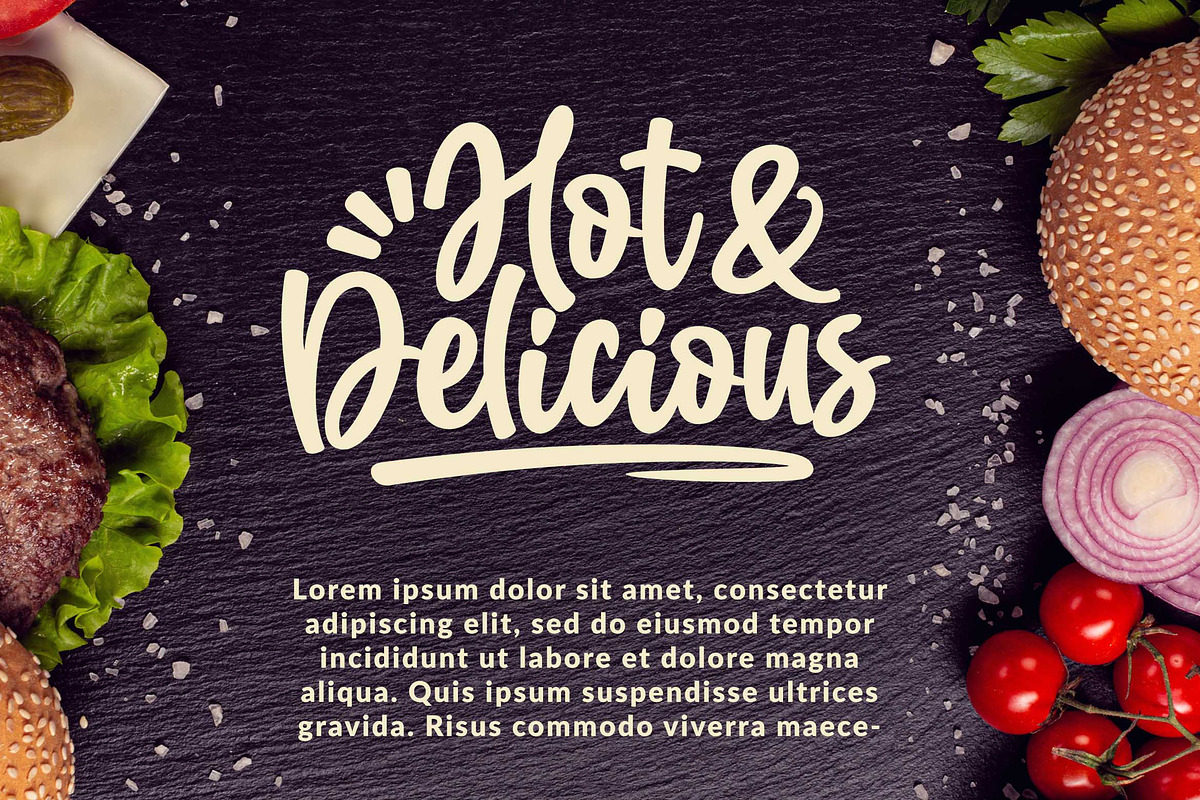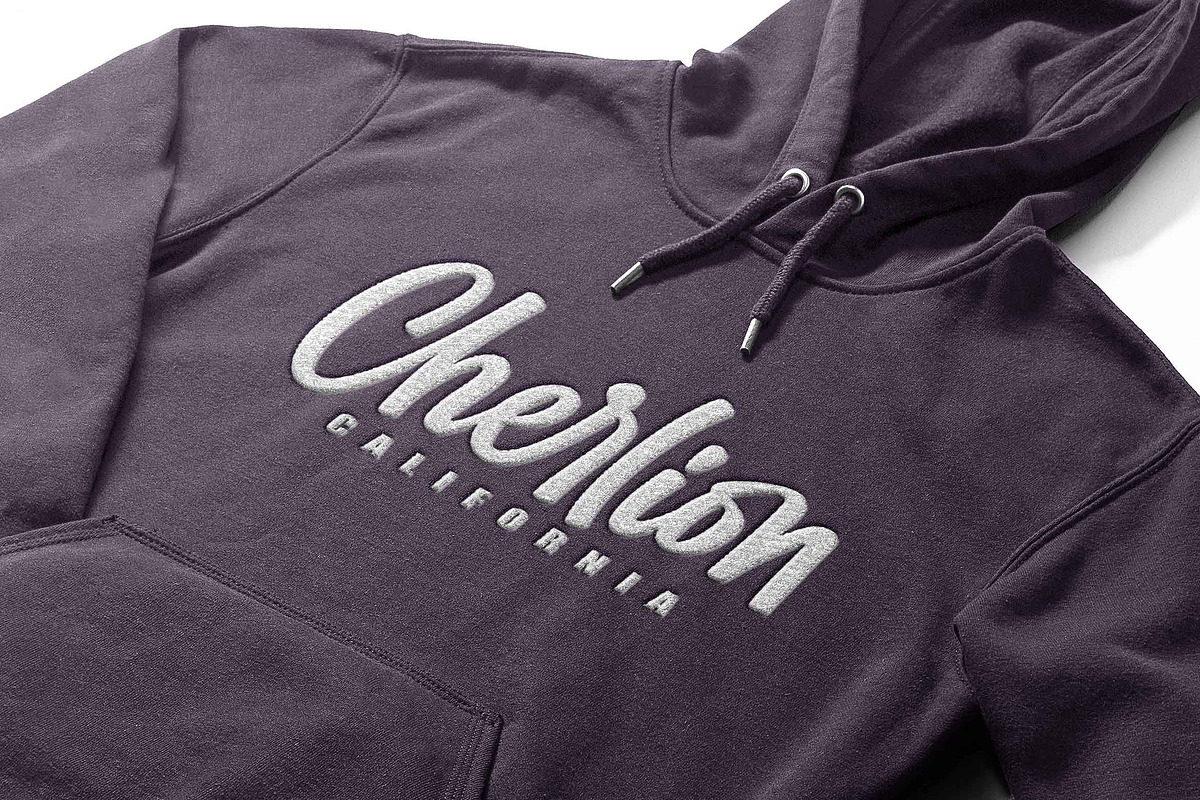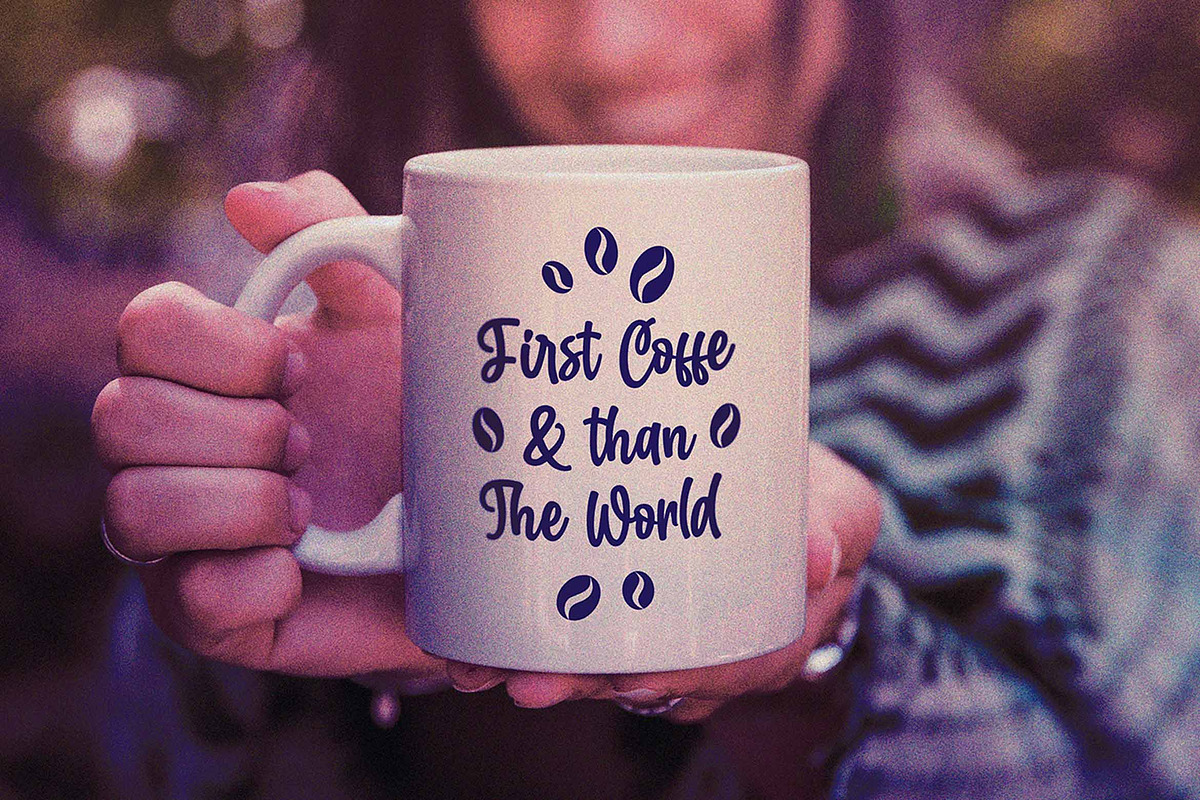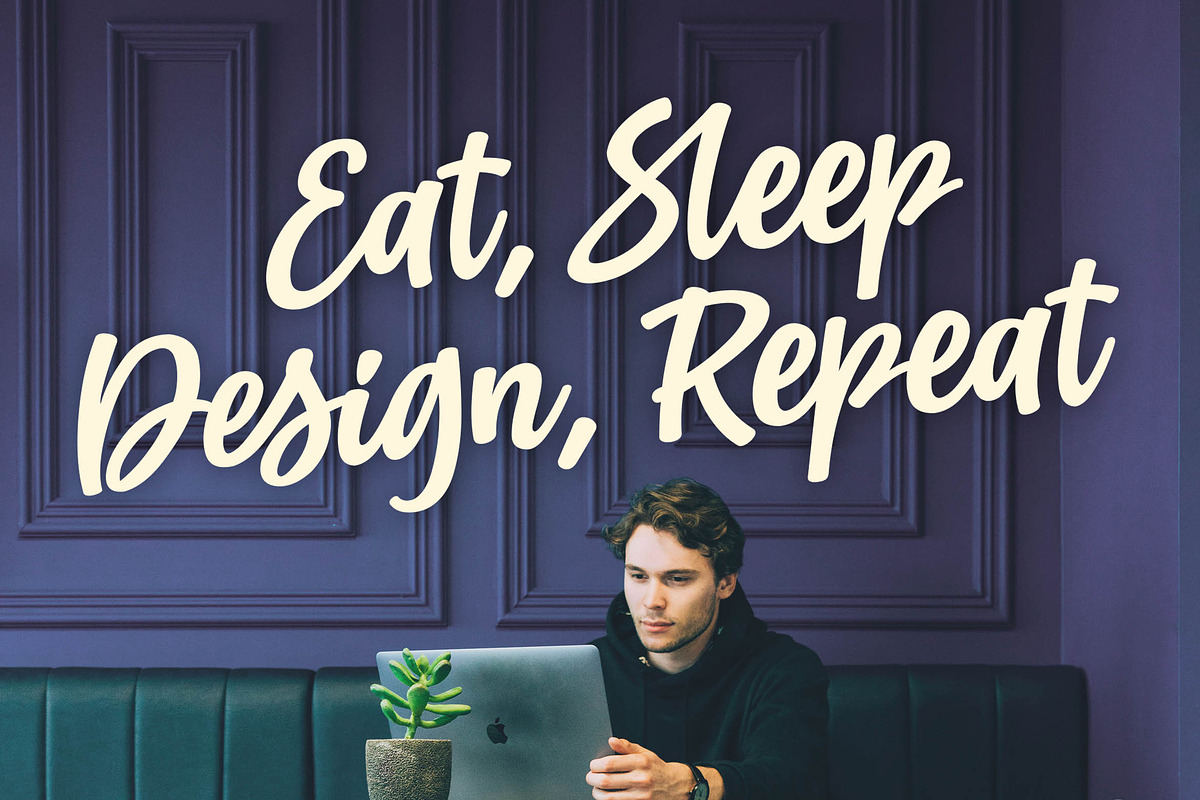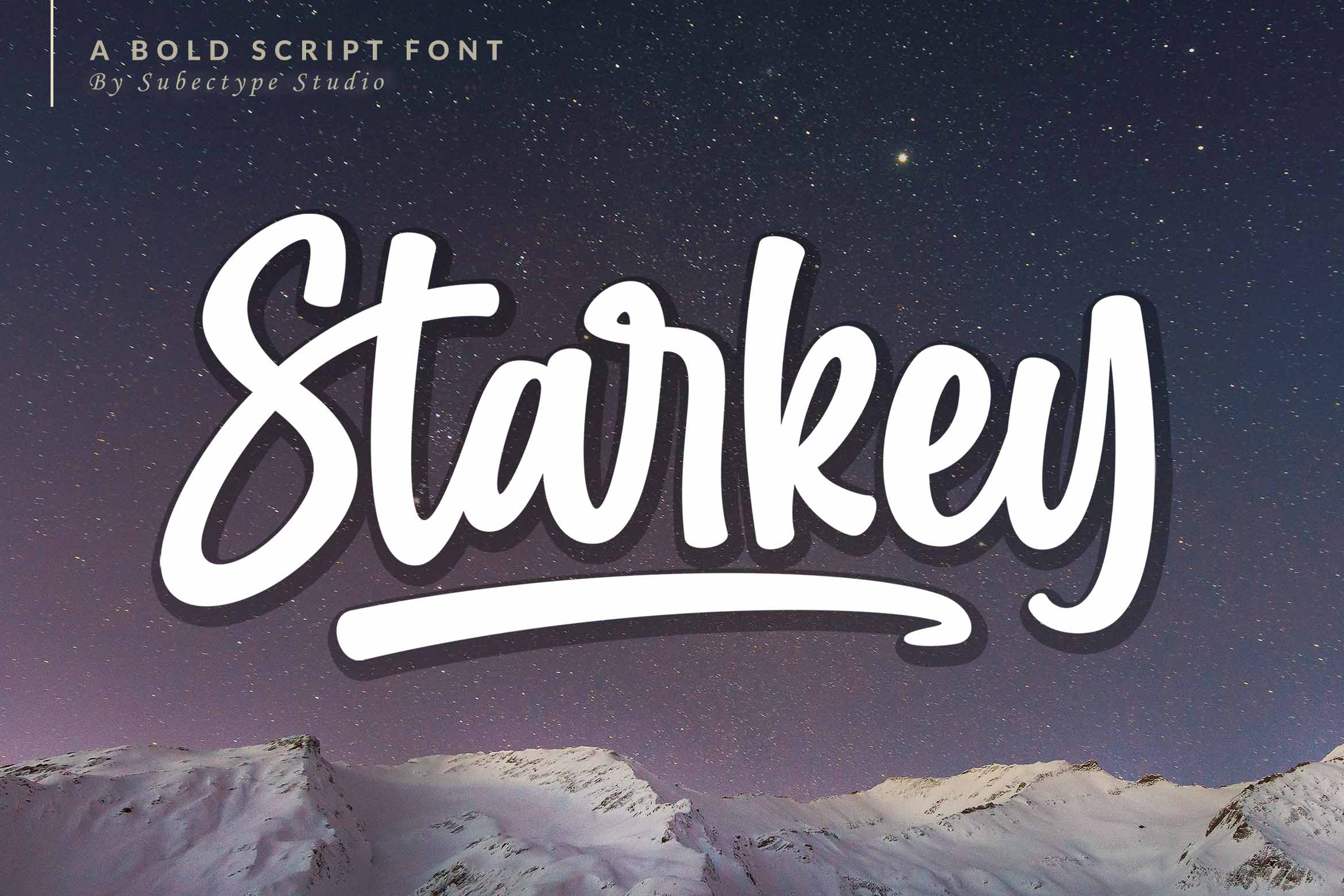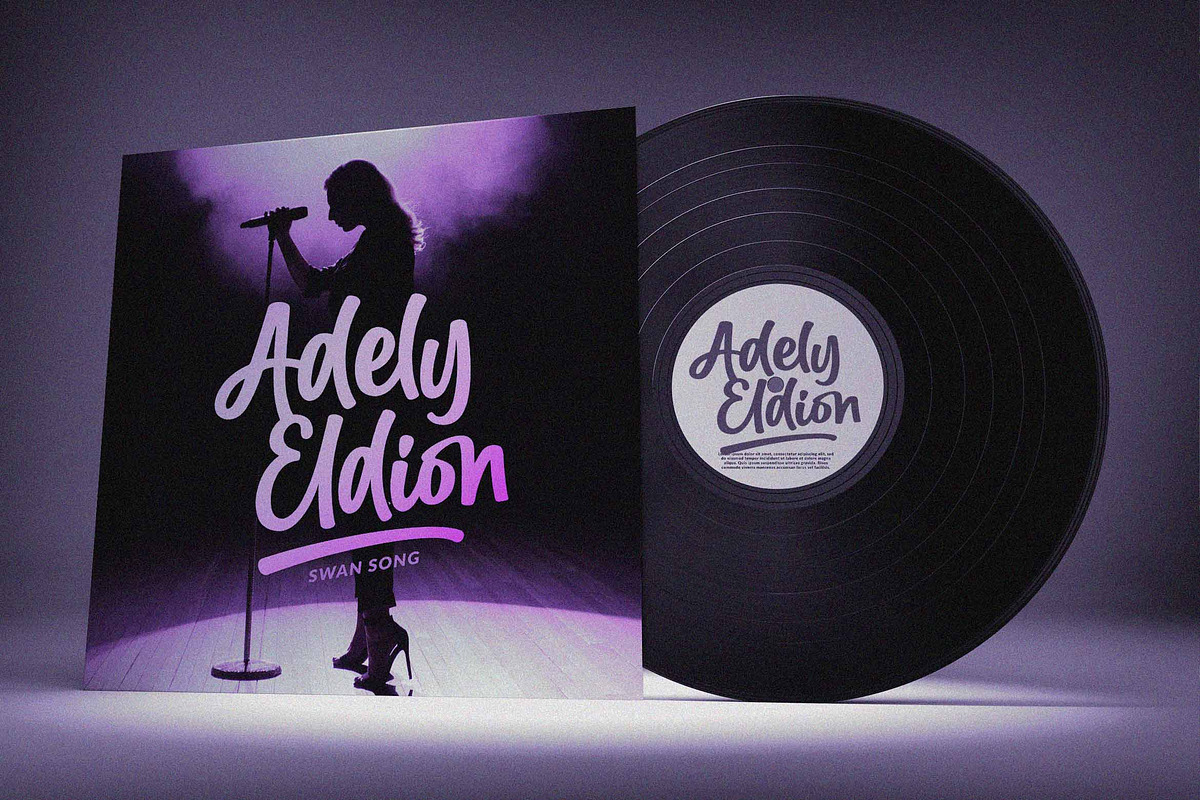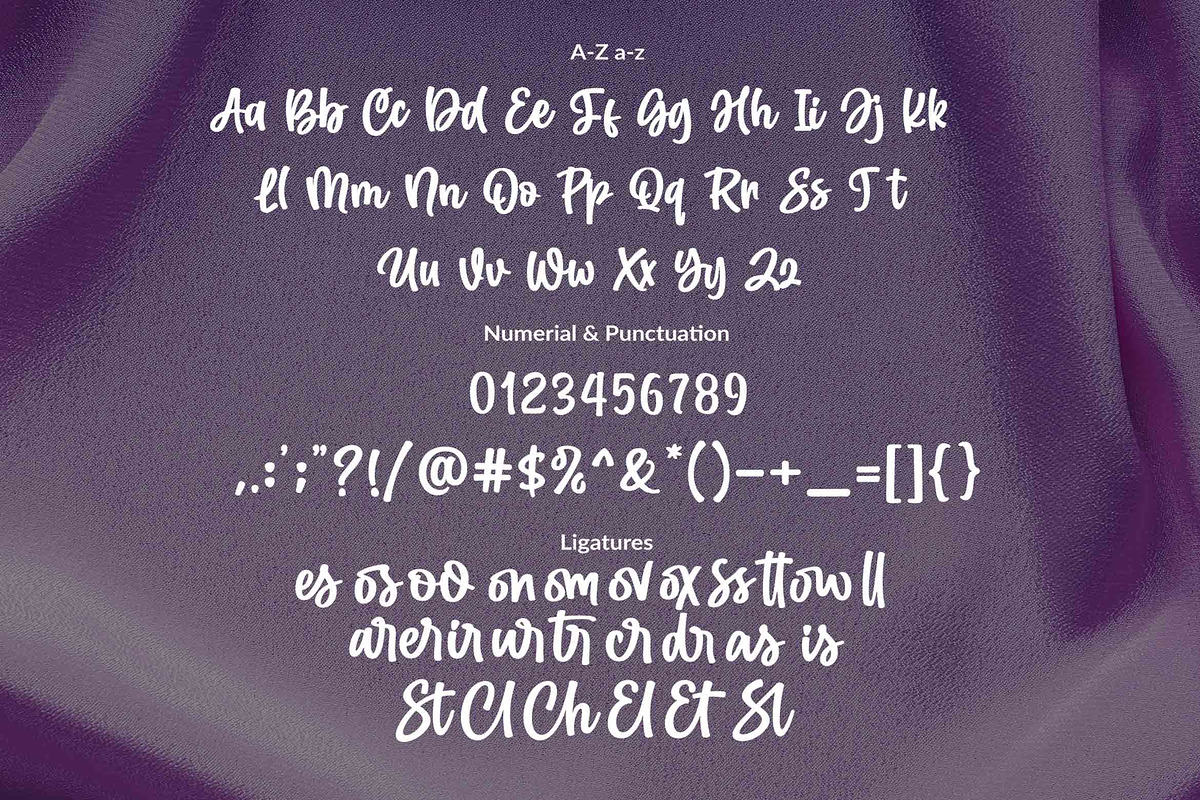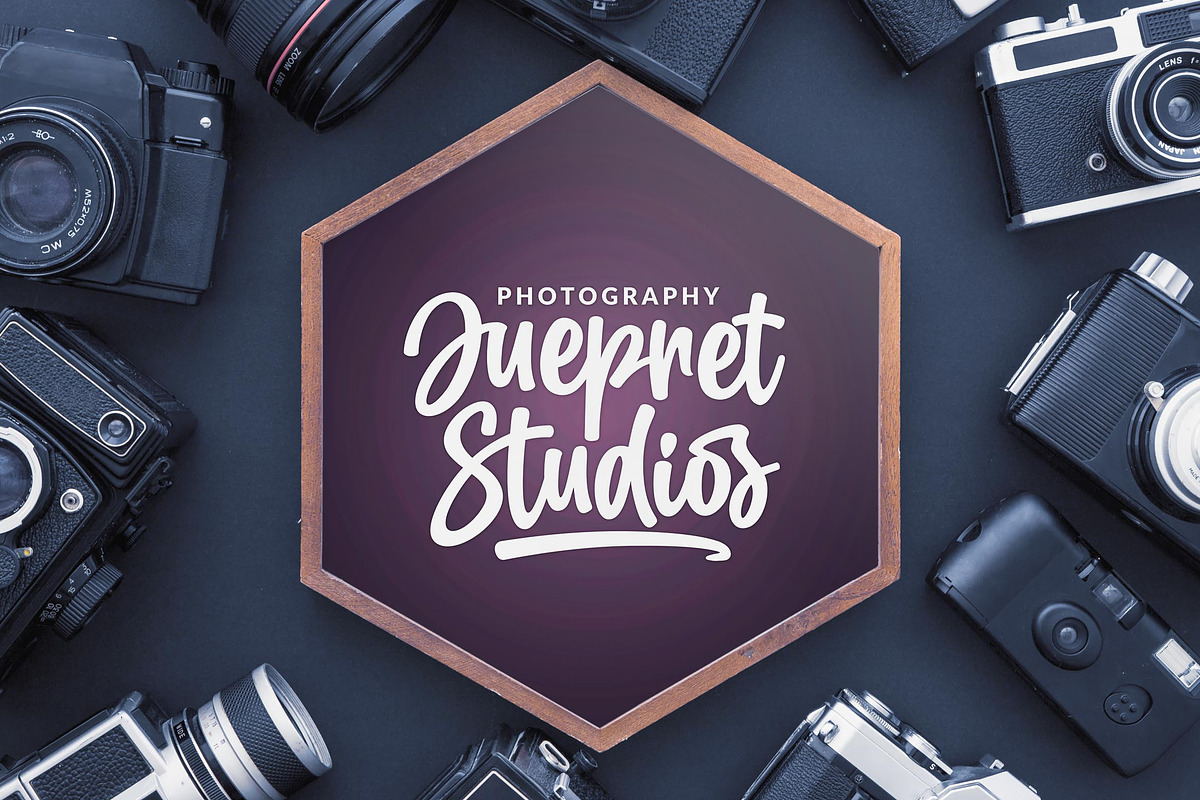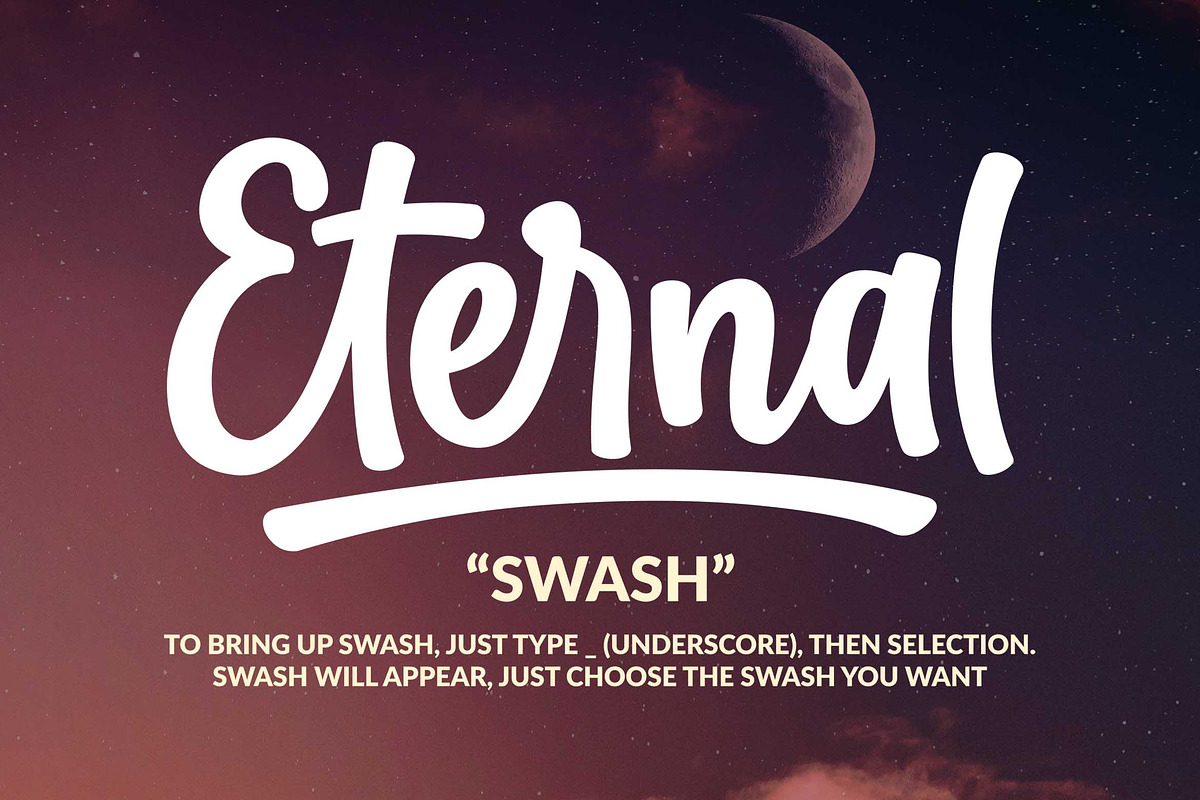
Starkey - Bold Script Font
Starkey - Bold Handwritten Font Starkey is a Bold handwritten Script font, this font come with handwritten style. It looks original and can be used for all your project needs. Each glyph has its own uniqueness and when meeting with others will provide dynamic and pleasing proximity. This font perfect for your branding and any awesome project, such as : logos, invitations, stationery, wedding designs, social media posts, advertisements, product packaging, product designs, labels, photography, watermarks, special events and much more !